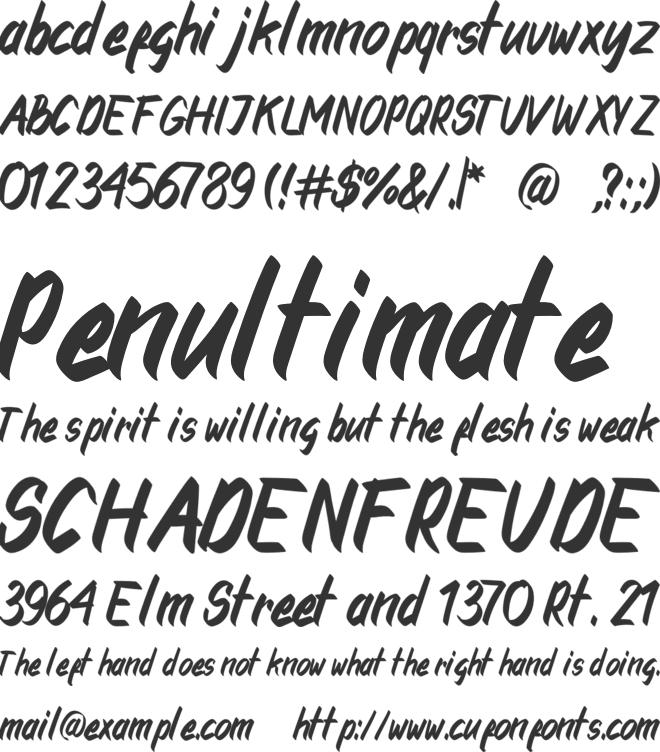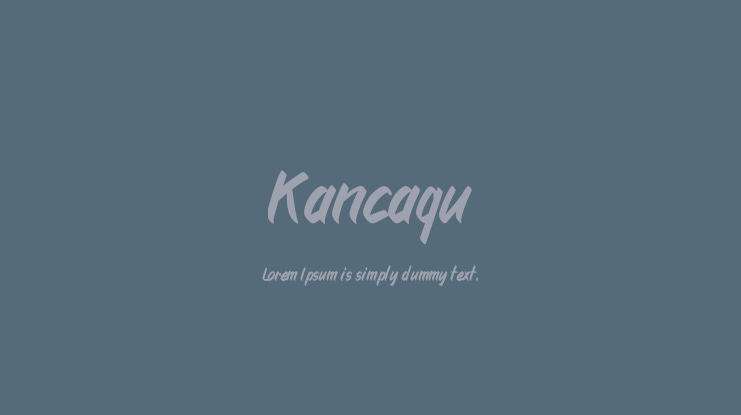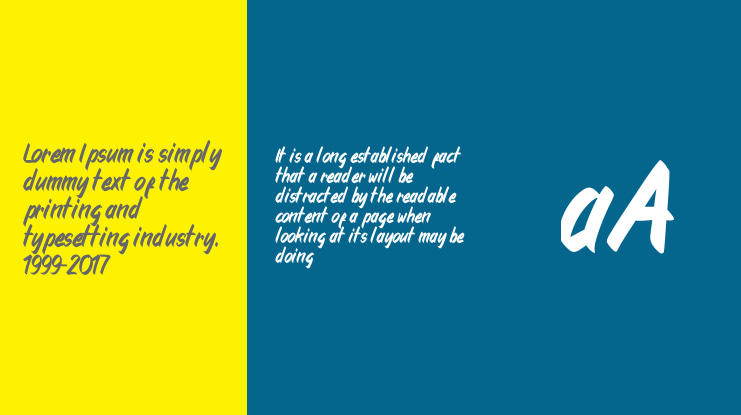
Kancaqu Font
KANCAQU is a font with a modern look and energetic. With extra attention to quick strokes and sharp details, KANCAQU is ready and perfectly fit for your logo designs, music projects & social media posts, event poster, brand imagery, product packaging, handwritten quotes, merchandise, etc. This font is free for personal use only. For commercial license and full version, please click this link https://crmrkt.com/zwrdzq .